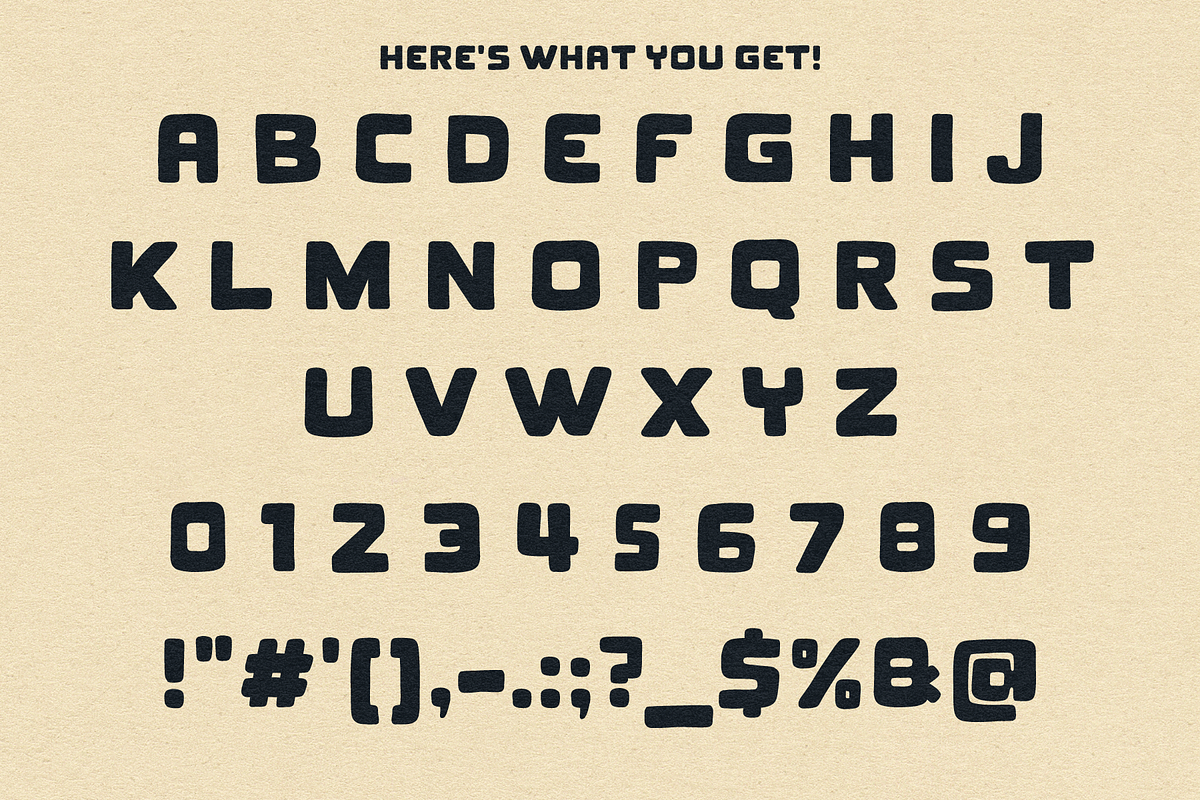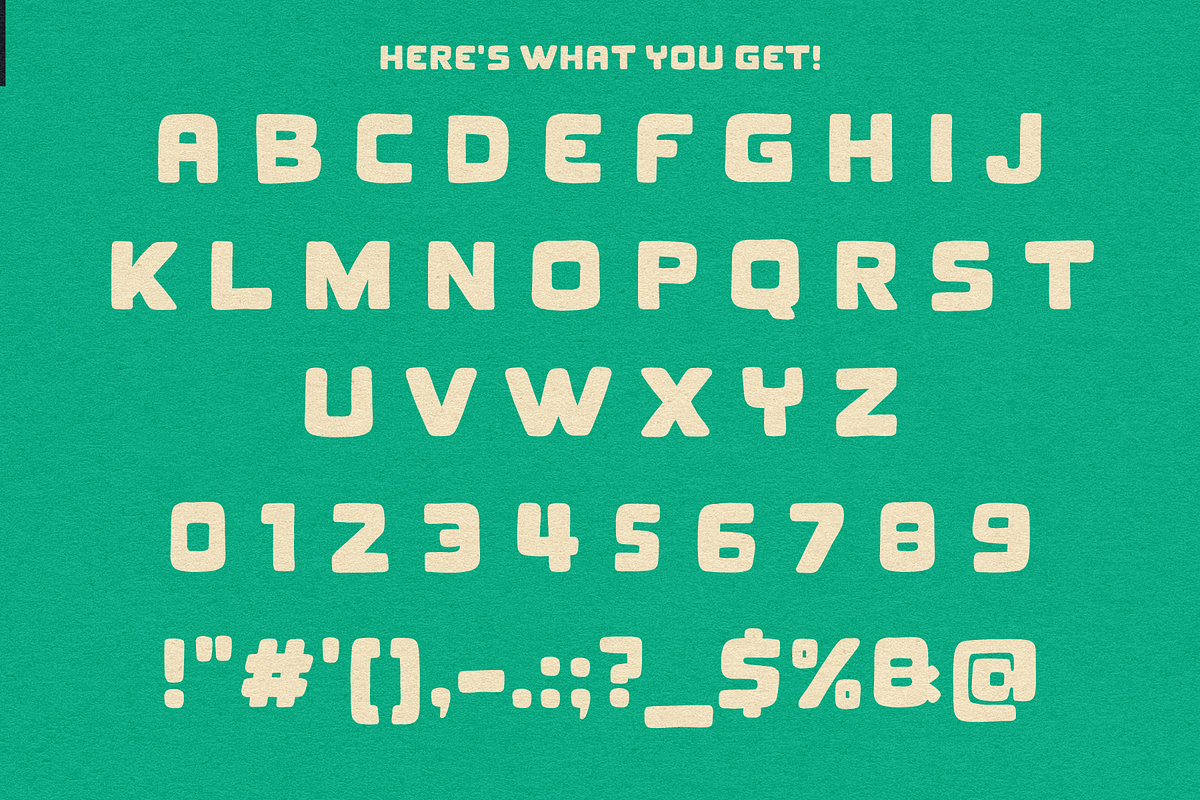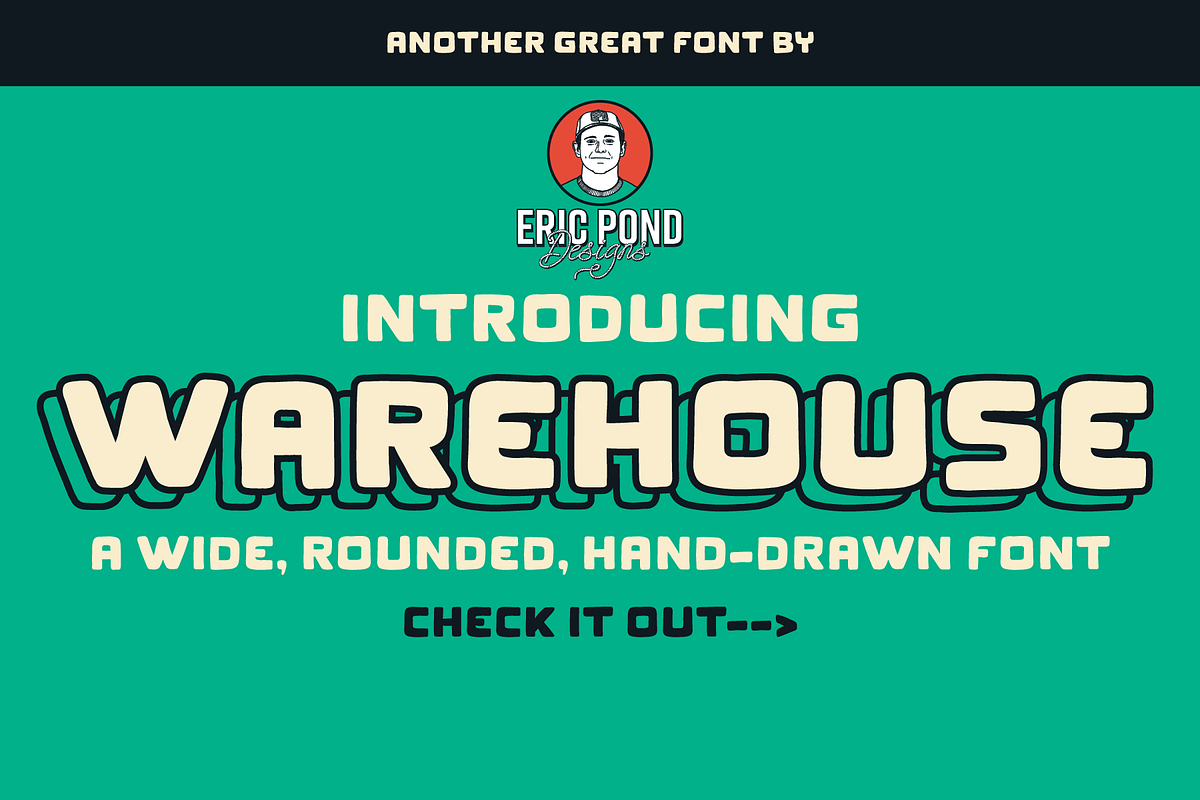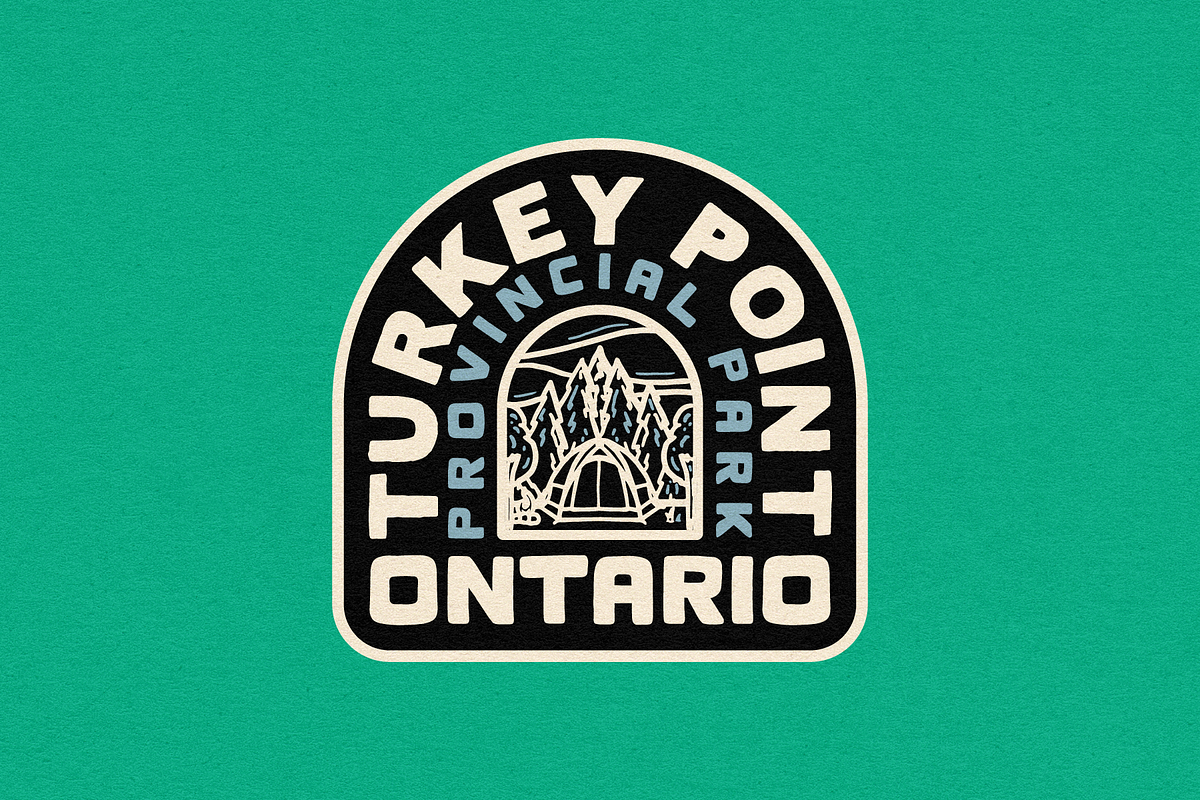
Warehouse by Eric Pond Designs
Introducing Warehouse, a wide, rounded sans serif with a hand-drawn feel! Featuring uppercase, numbers and some punctuation.